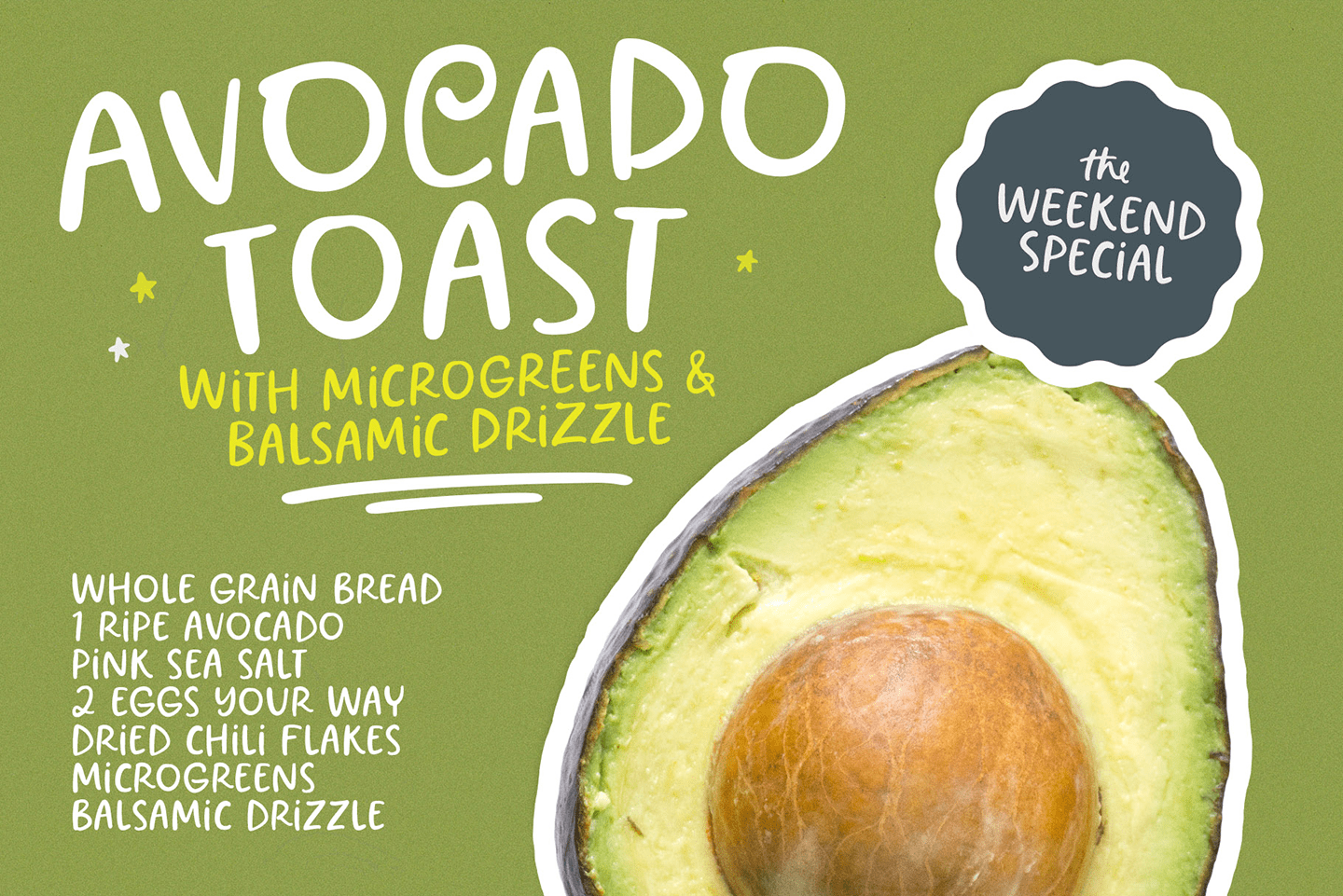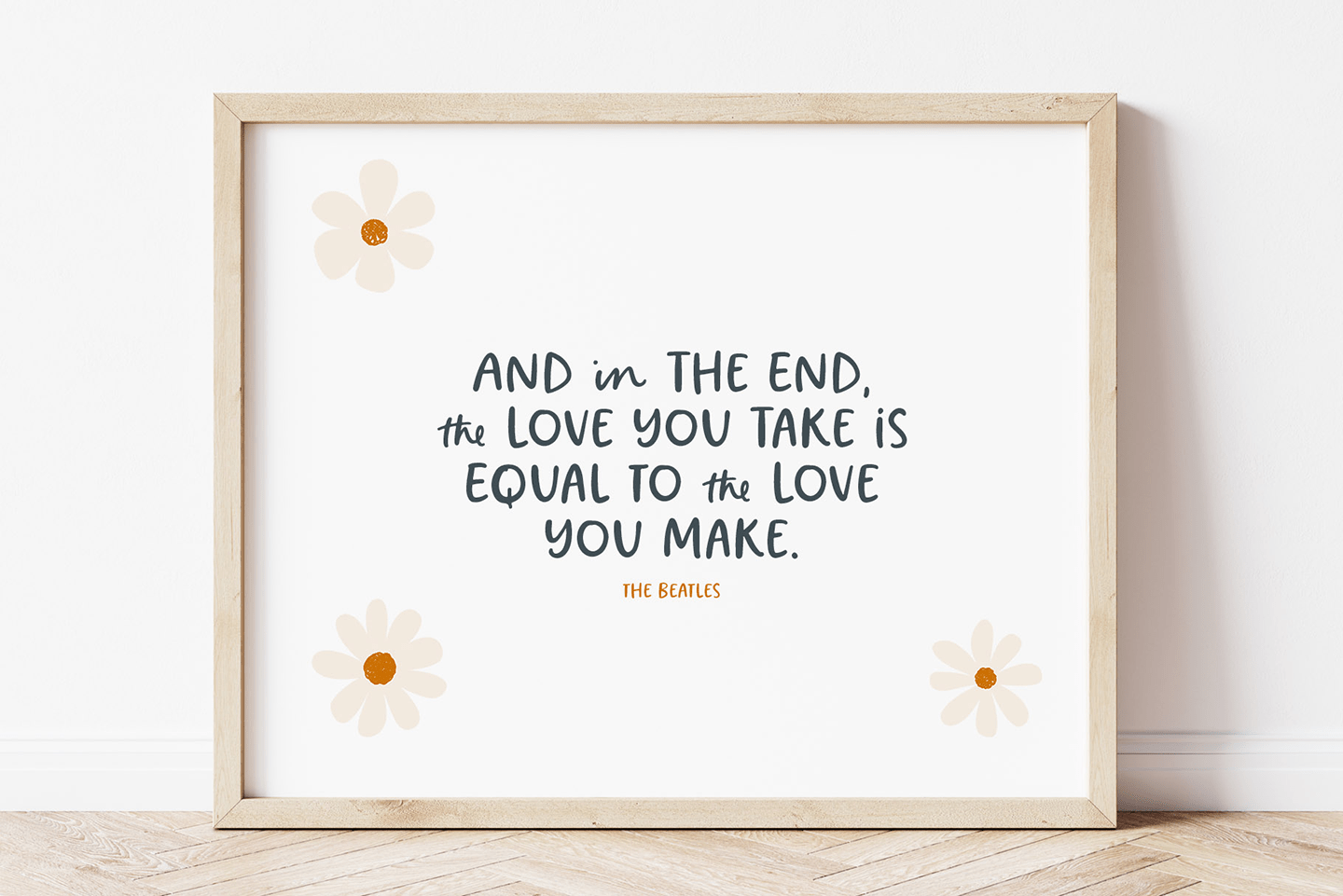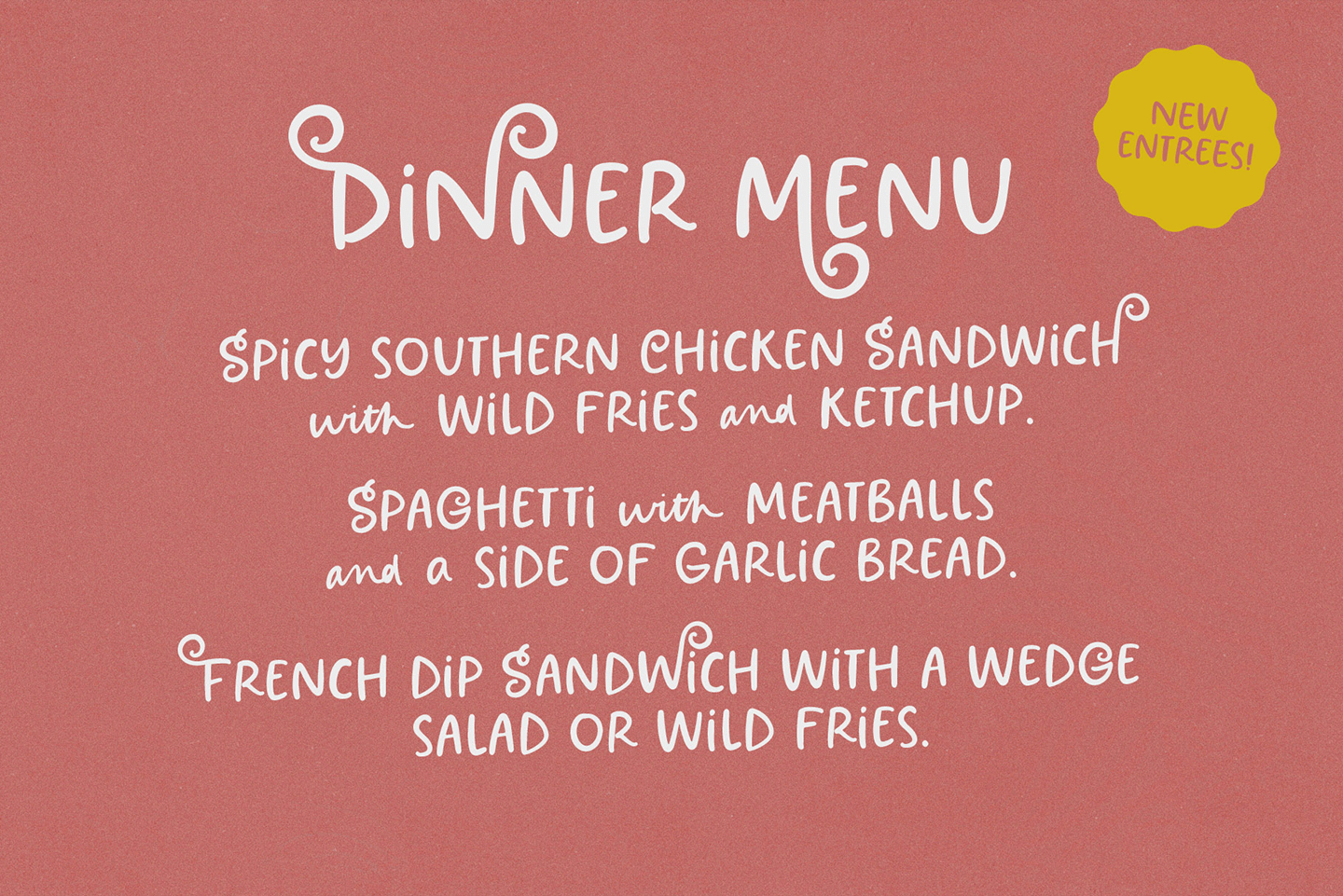
About Dueling Peppercorns
Introducing Dueling Peppercorns. This dual-purpose typeface is both sweet & spicy! Use the \’sweet side? (with a clean character set), or the \’spicy side? (with curly uppercase letters) to spice up your projects. Dueling Peppercorns looks so cute on notebooks,…